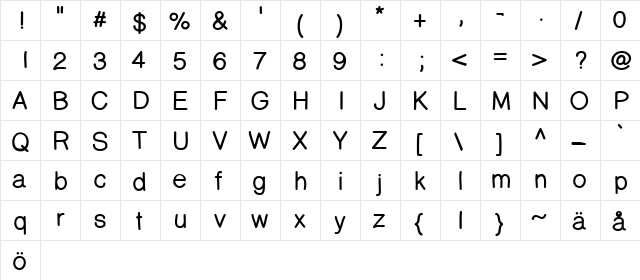
PrinsesstartaDEMO Bold
| Foundry | Shara Weber |
| Designer | Shara Weber |
Design Context for PrinsesstartaDEMO Typeface
PrinsesstartaDEMO is a composed and adaptable typeface that performs quietly and consistently across a wide range of design contexts. Its bold stroke weight gives it real presence on the page.